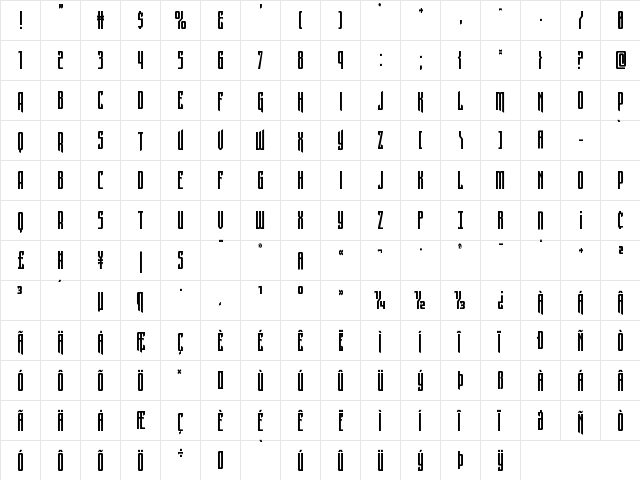
Night Traveler Condensed Regular
Design Context for Night Traveler Condensed Typeface
Night Traveler Condensed offers clean, dependable letterforms without strong stylistic allegiance, making it a practical choice for designers who need flexibility. The condensed width makes it efficient for tight spaces without sacrificing legibility.